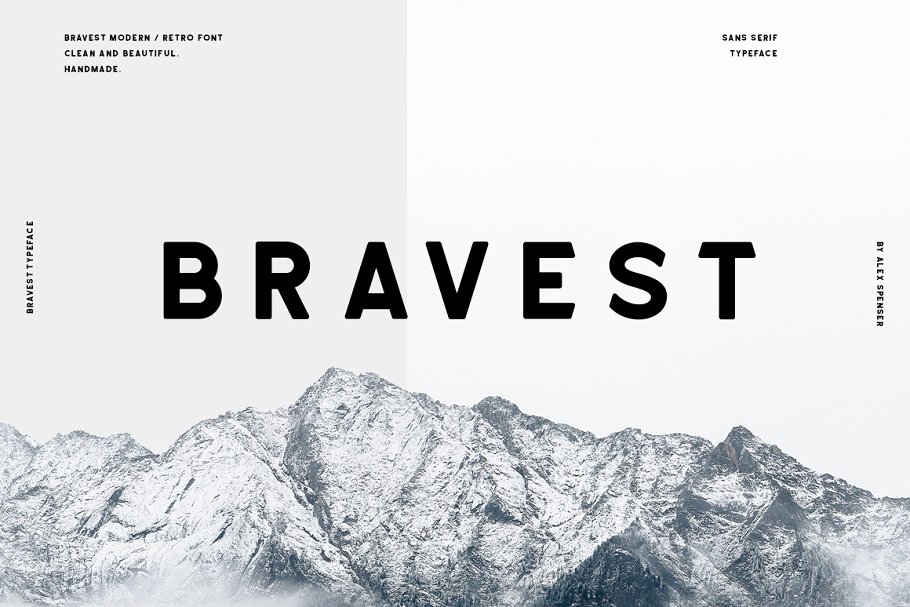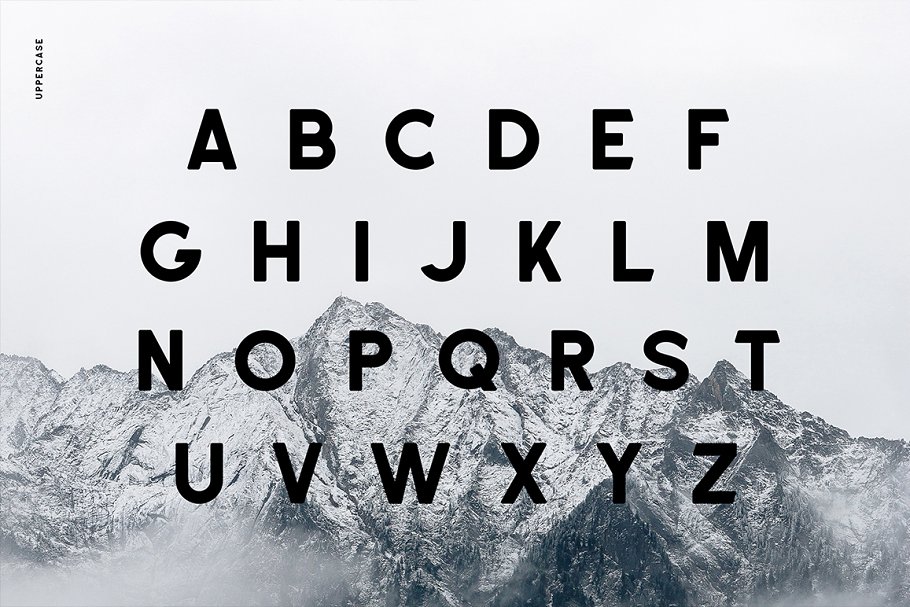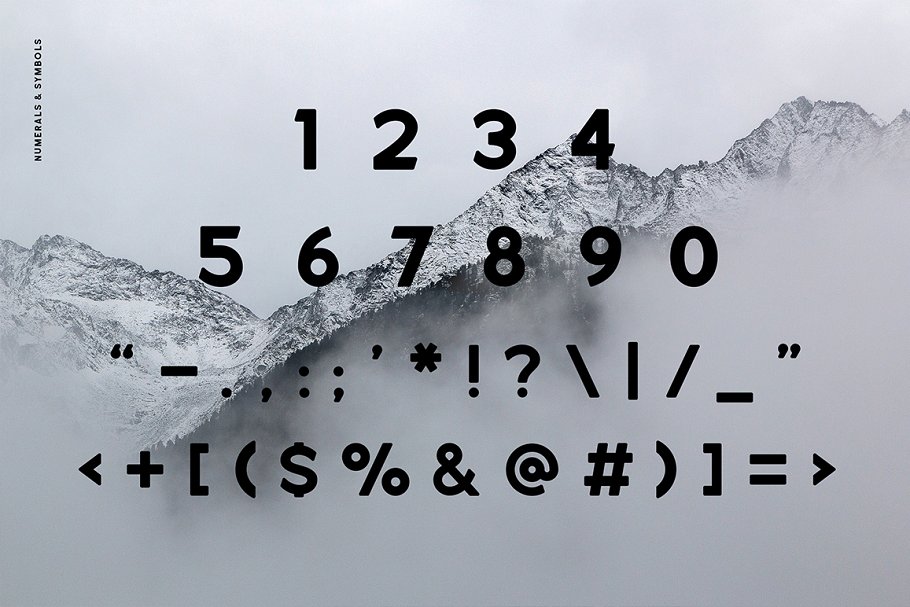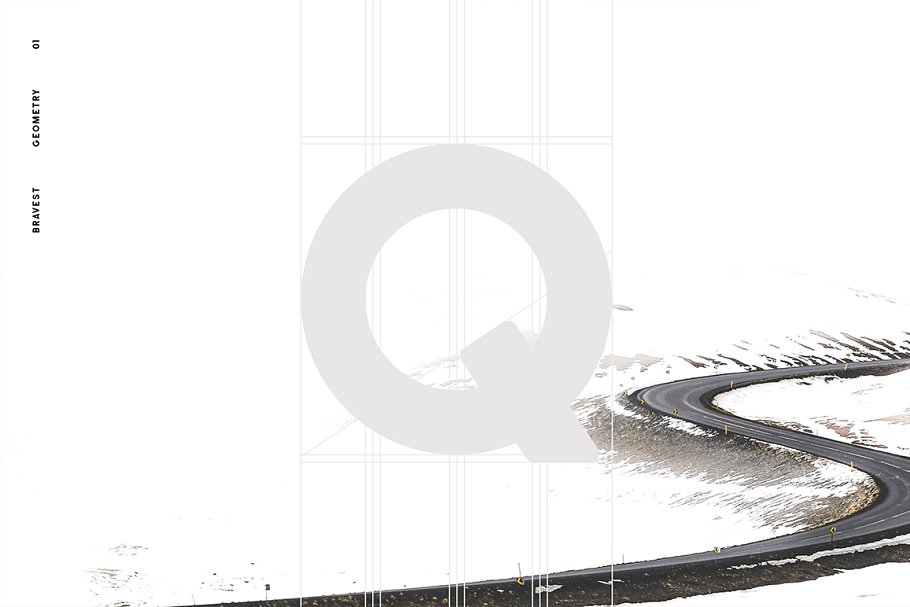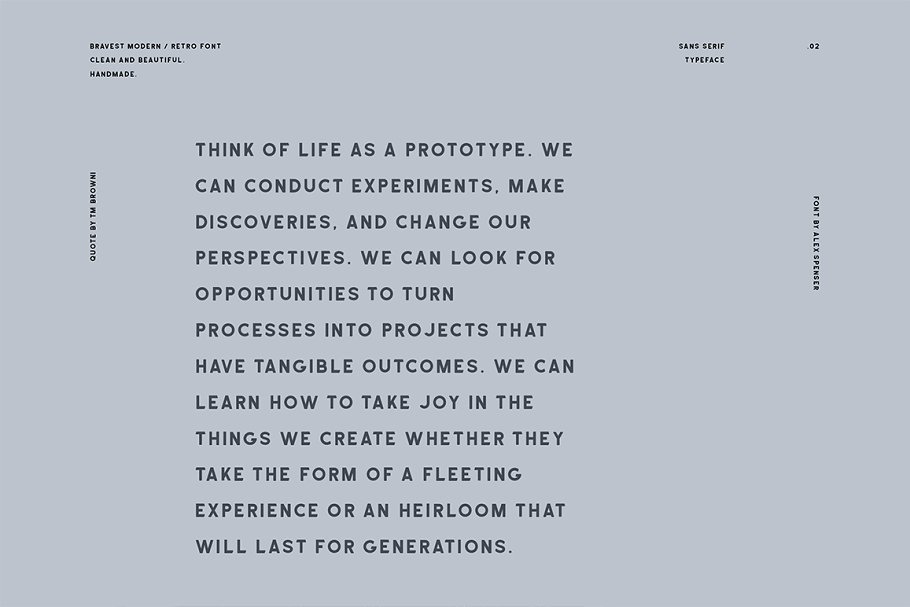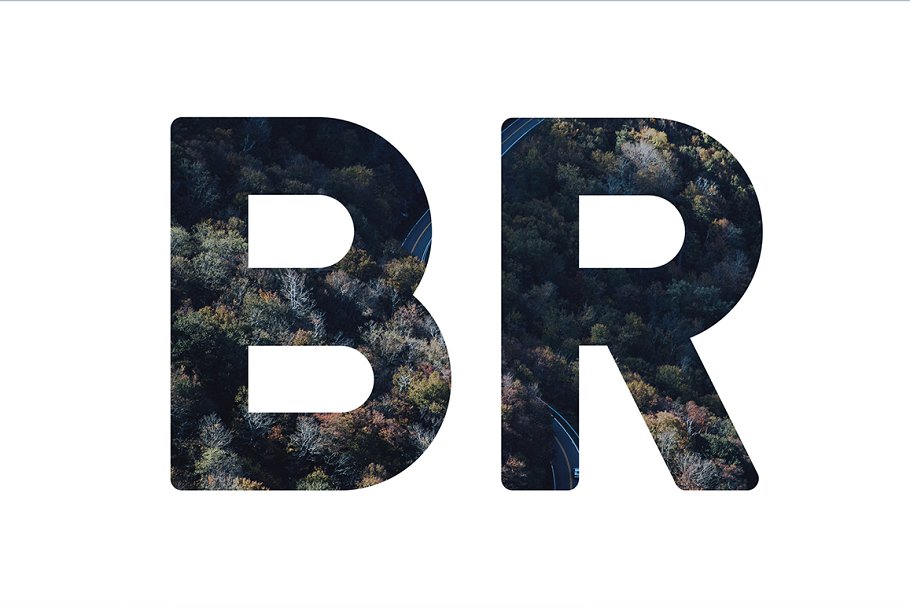
About the Bravest Font
Bravest is a simple sans serif typeface designed by Alex Spenser, This typeface was inspired by old school vintage typography but with the feel of clean & simple modern design look, It works great for logo designs, titles, badges, labels and small amounts of text, It contains an uppercase alphabet with numbers and symbols, , OTF and , TTF files format;Webfont files included;OpenType features;Long term support (24/7) and free features;Handcrafted